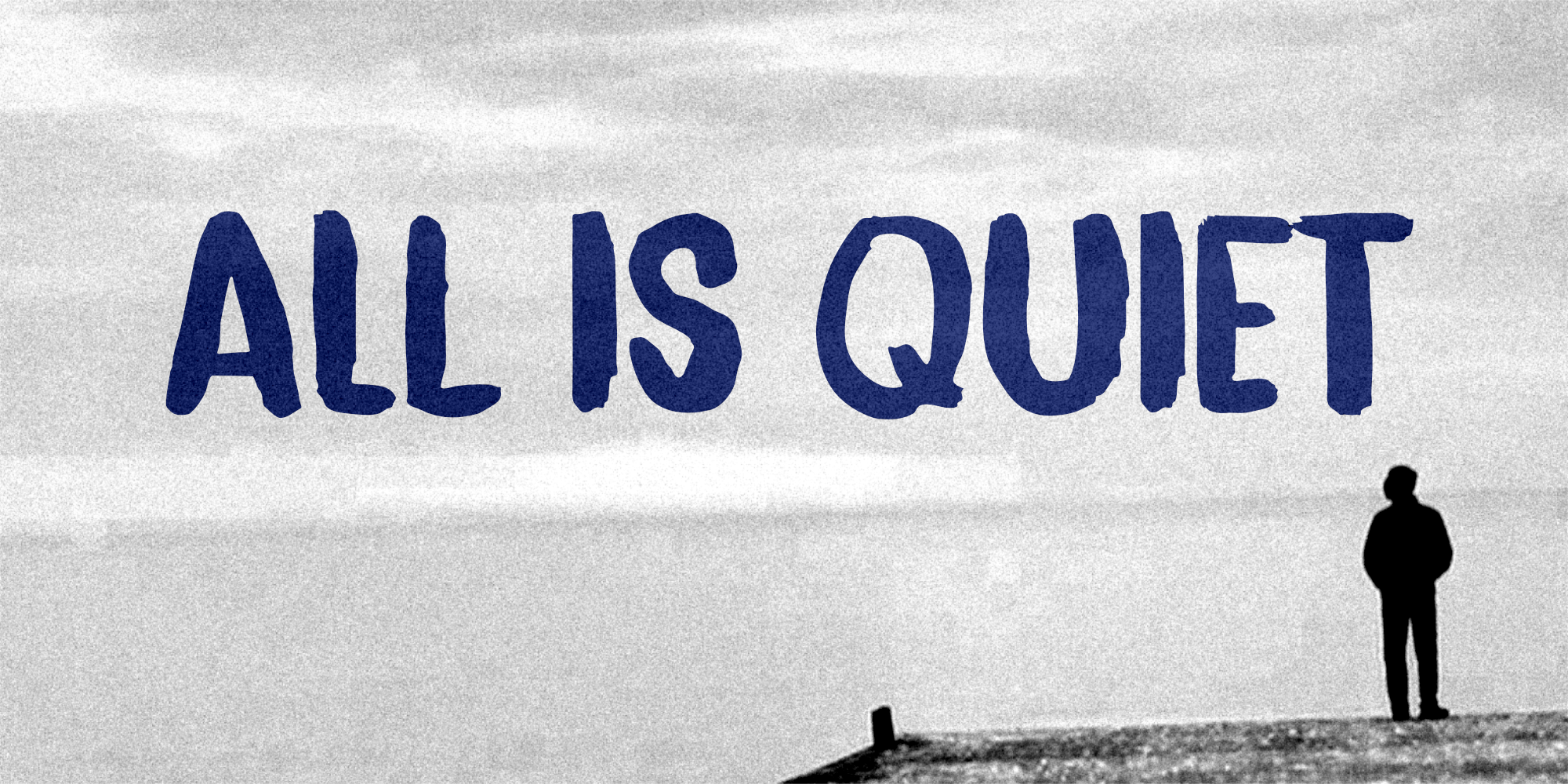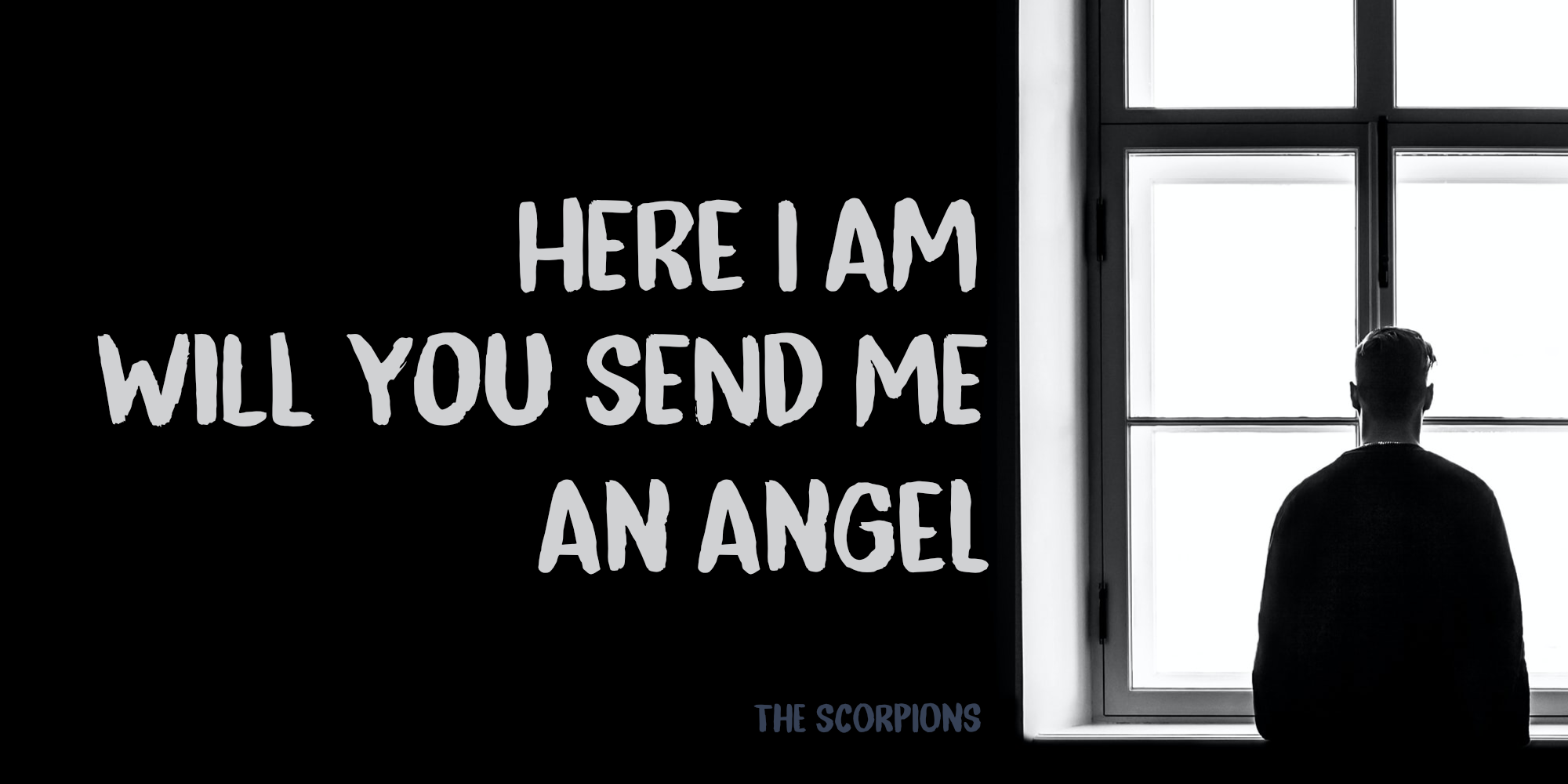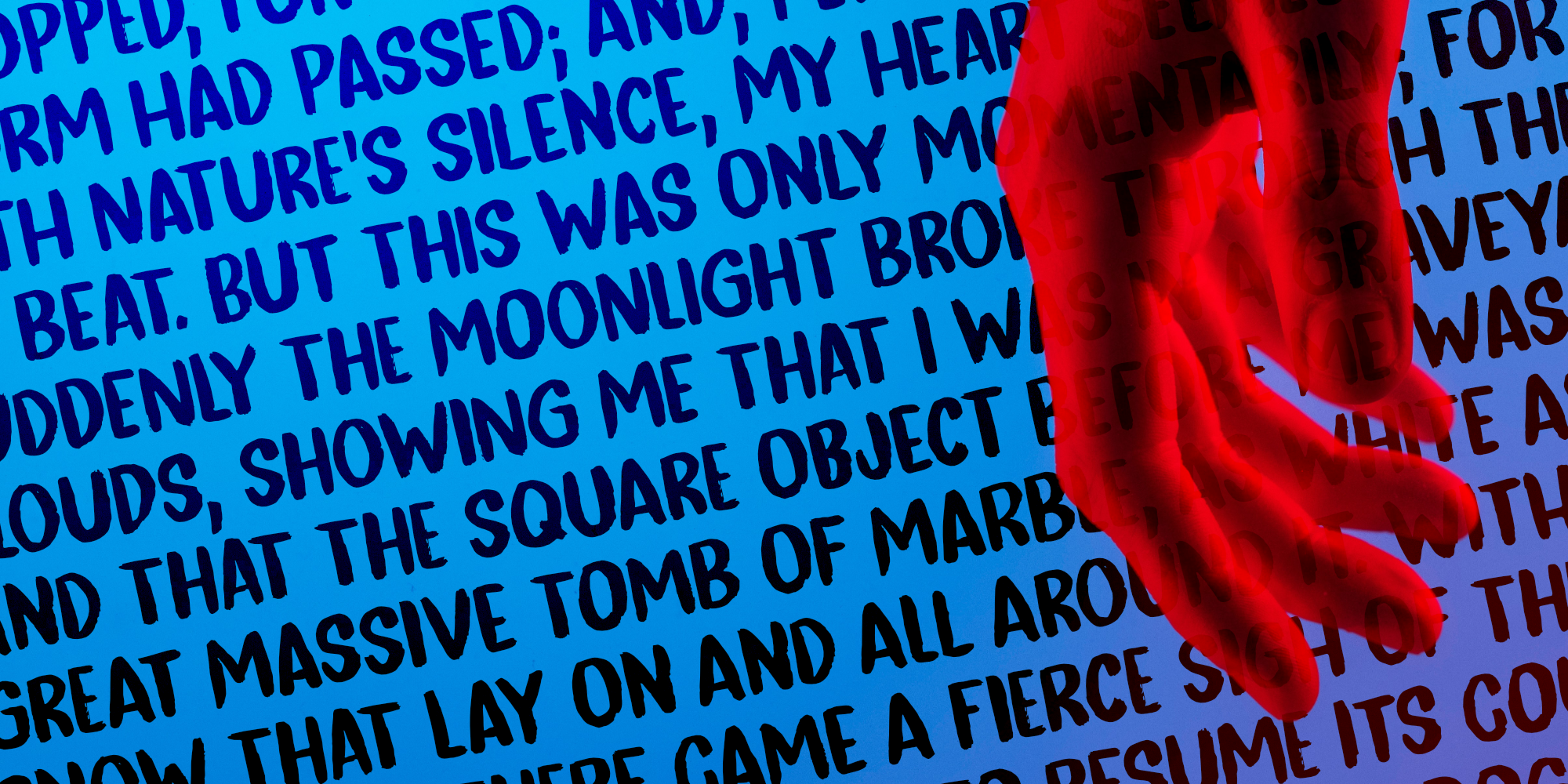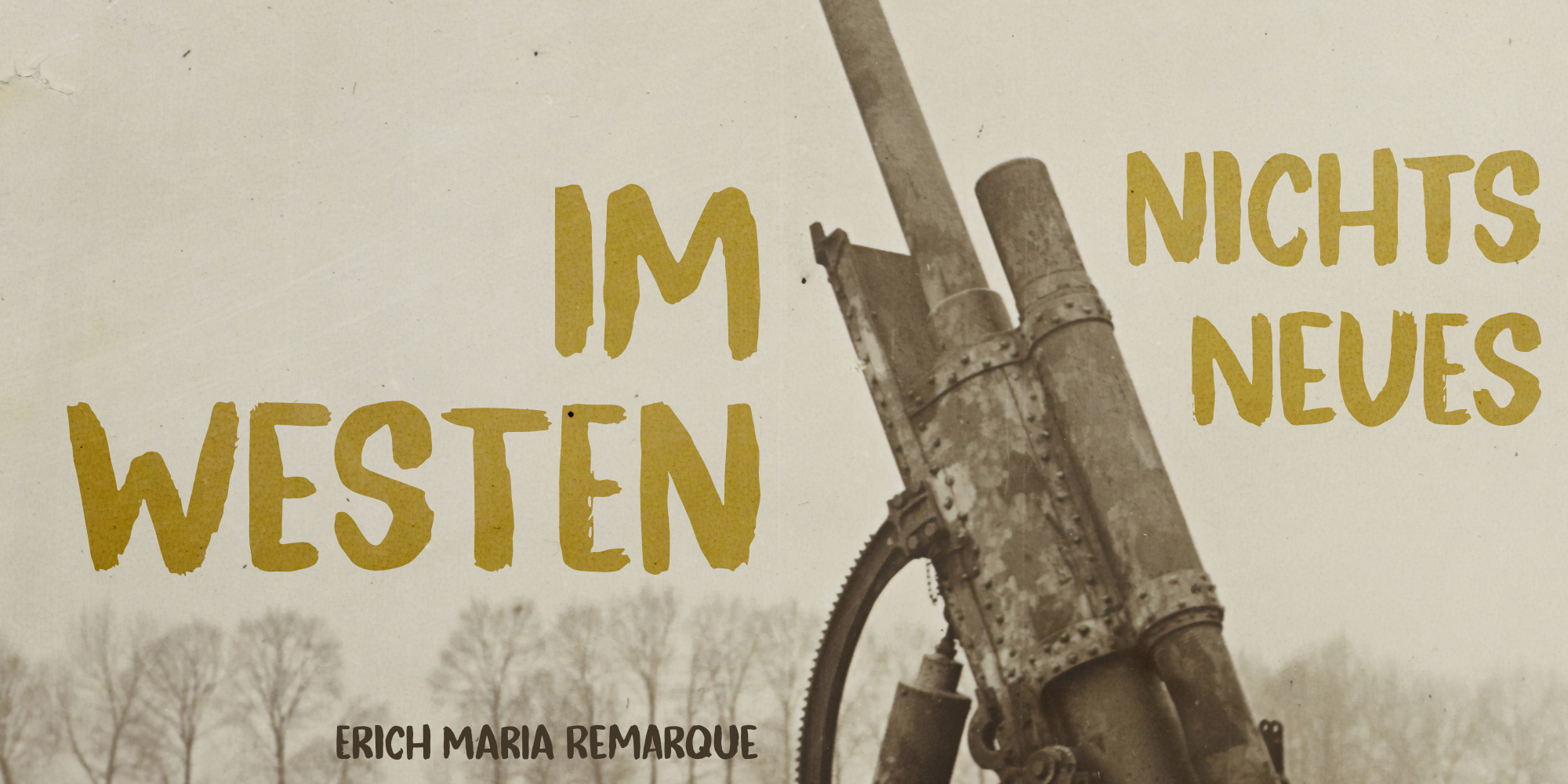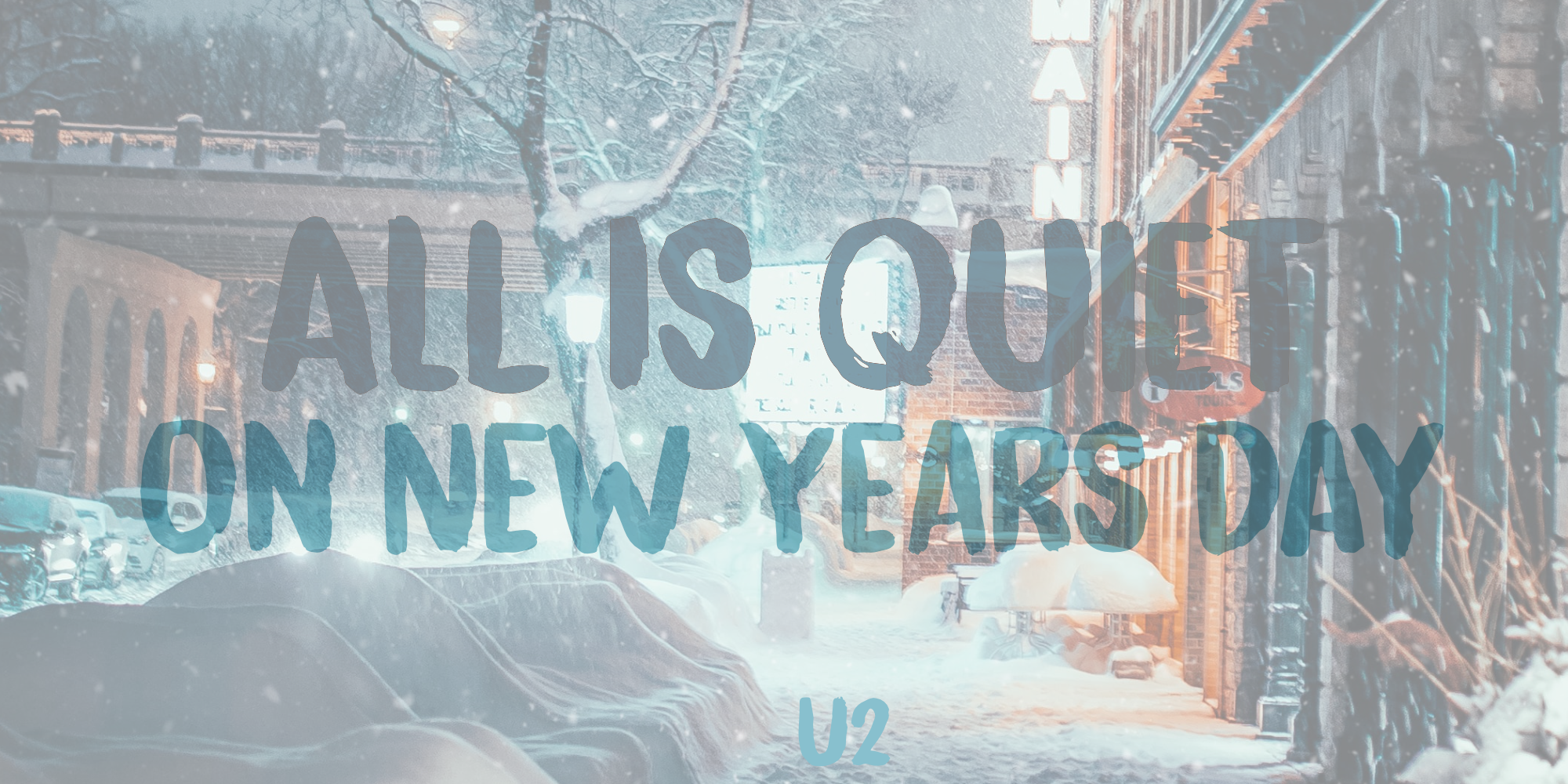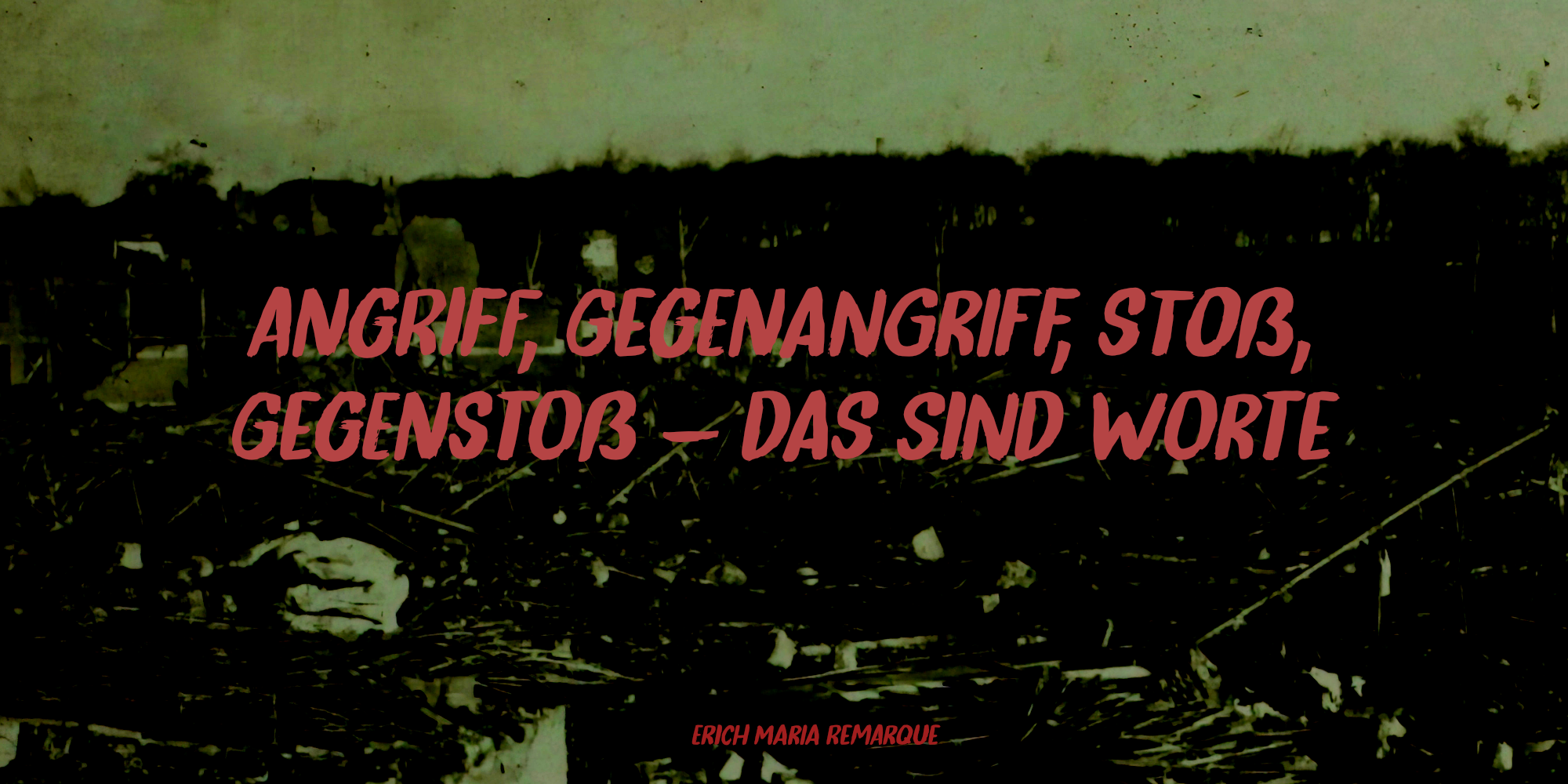
So there you have it: naming a font in 2 easy steps! ;-) All Is Quiet is a lovely brush font, which I created using my father in law’s Chinese pencil and ink. I can suggest some uses here, but I am convinced you can come up with that yourself.